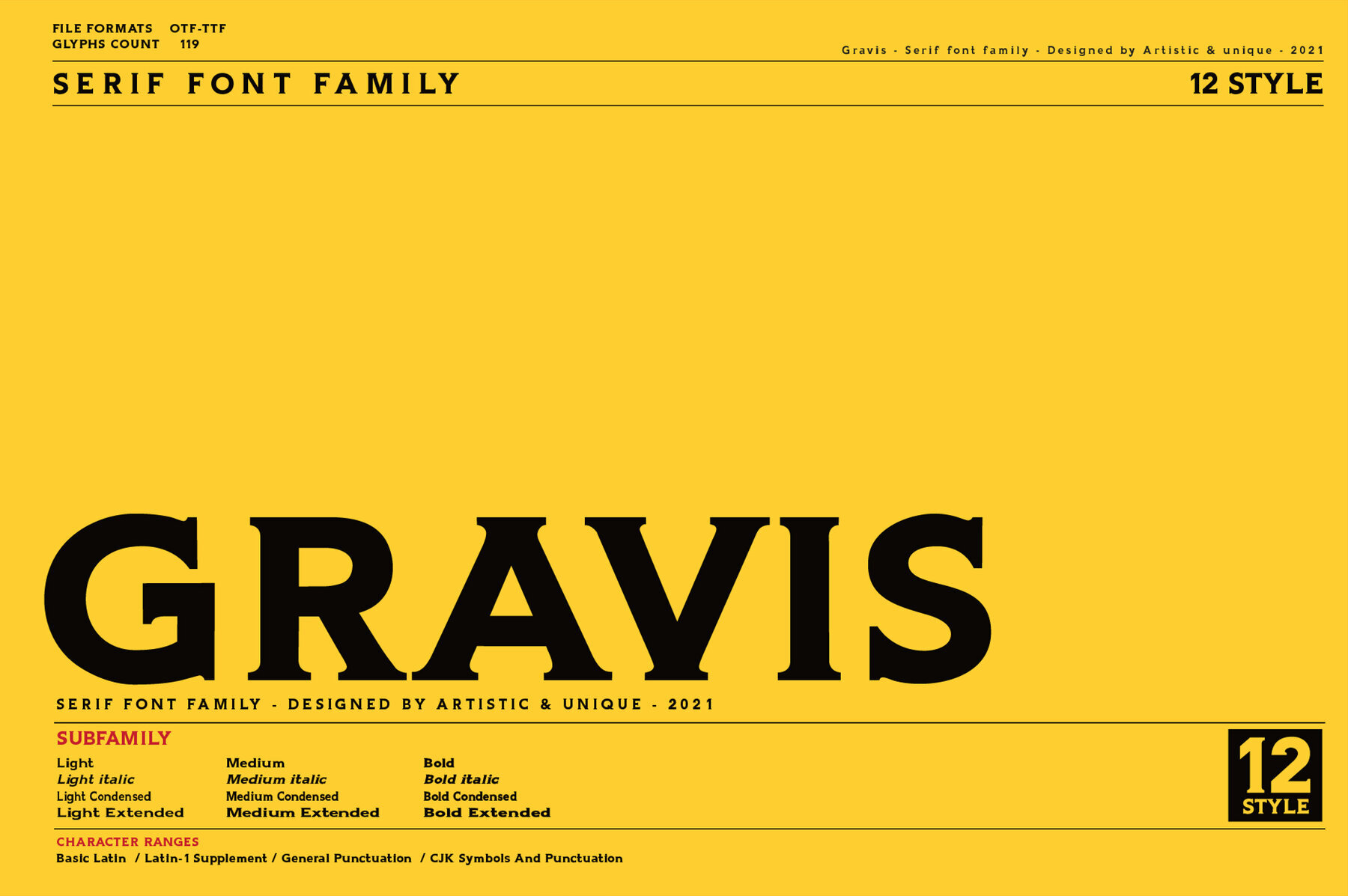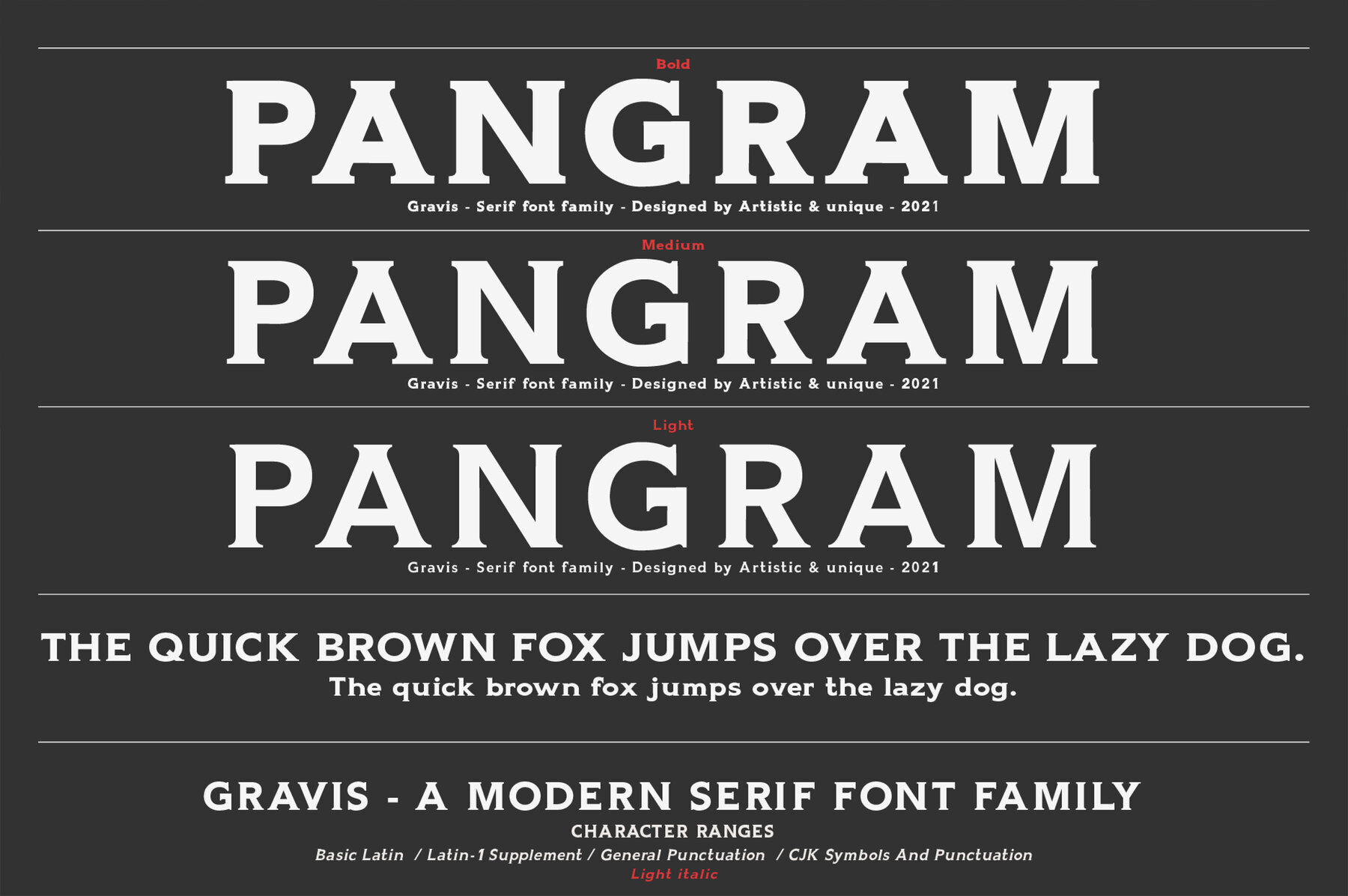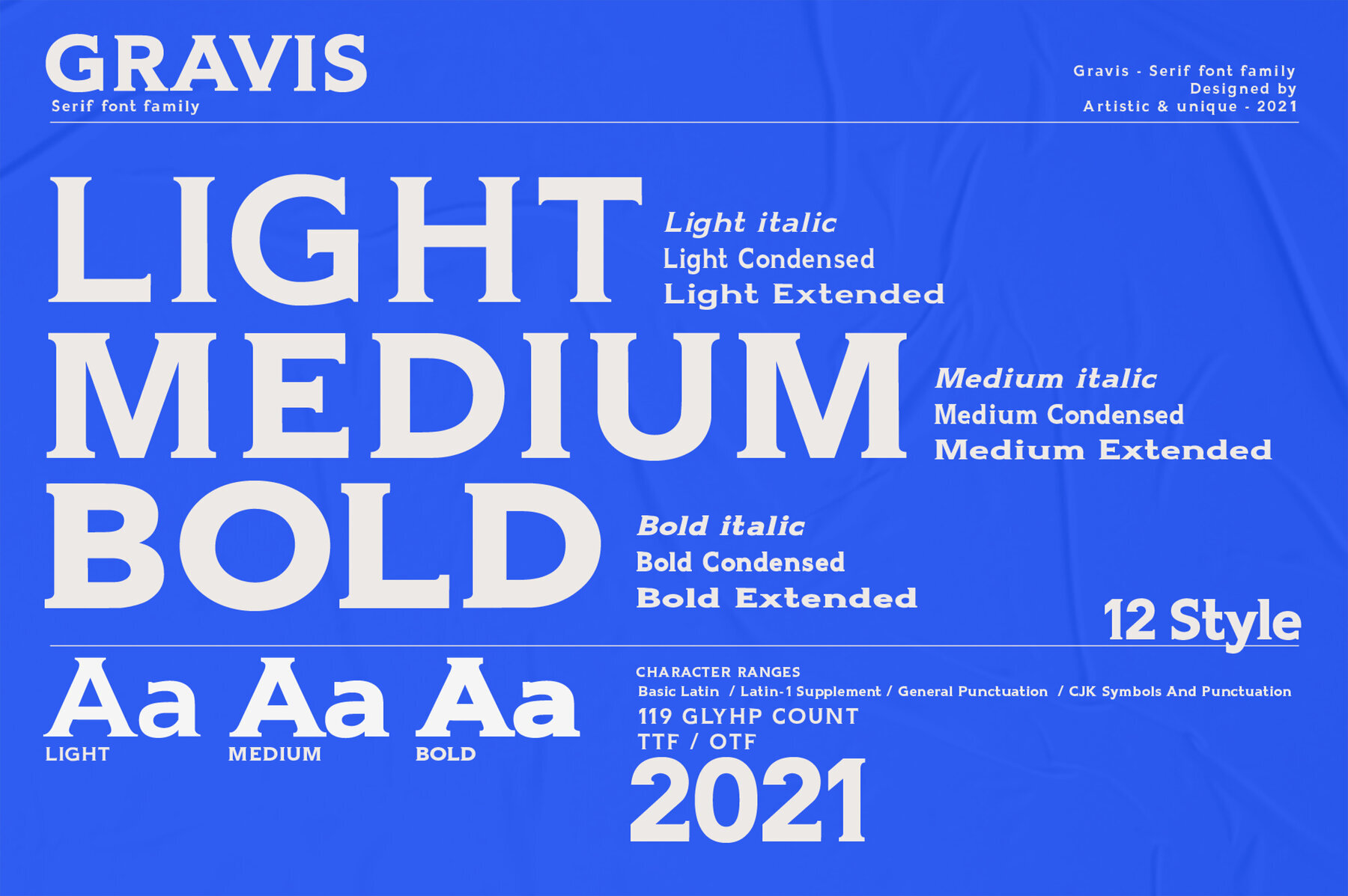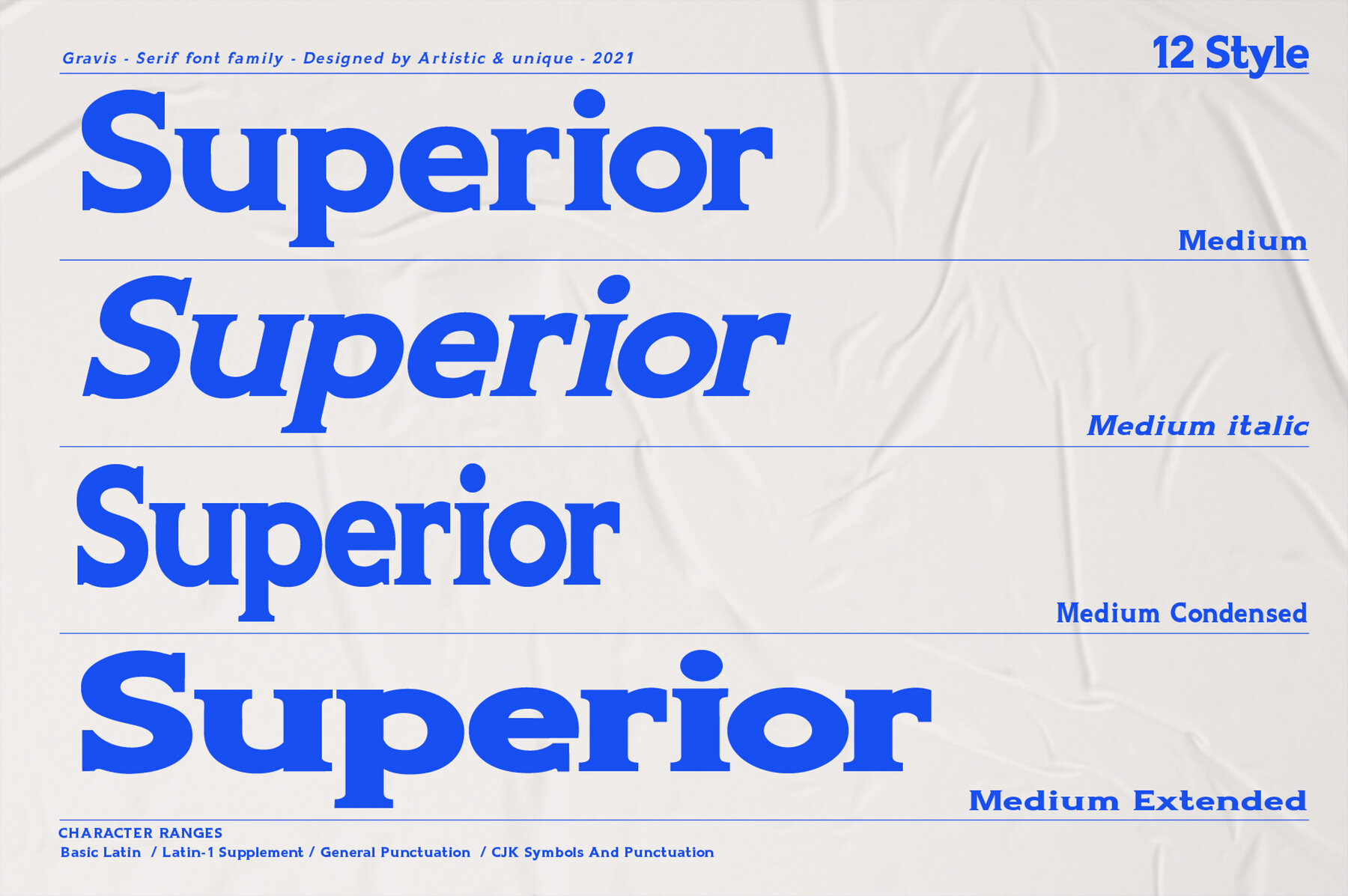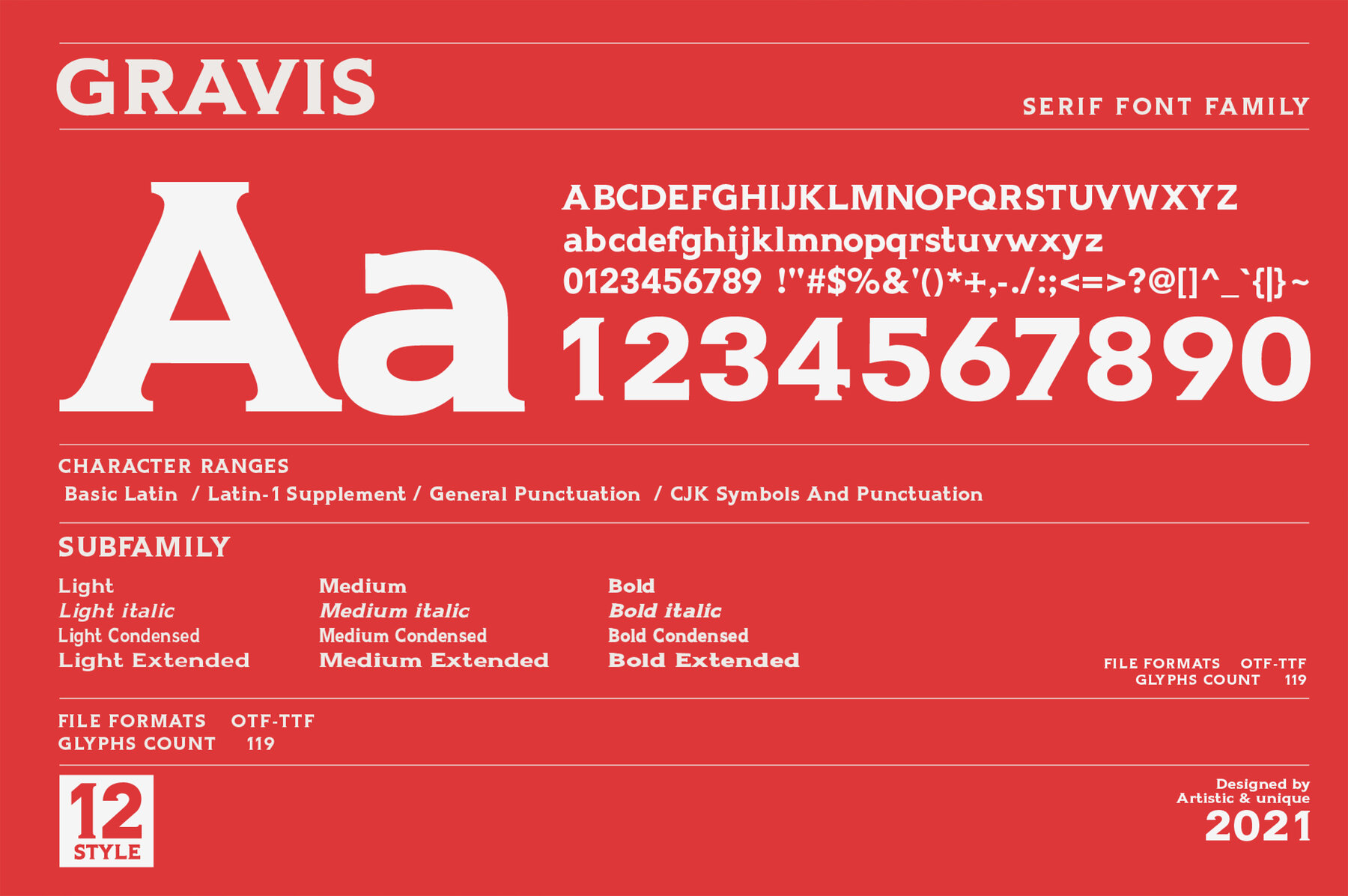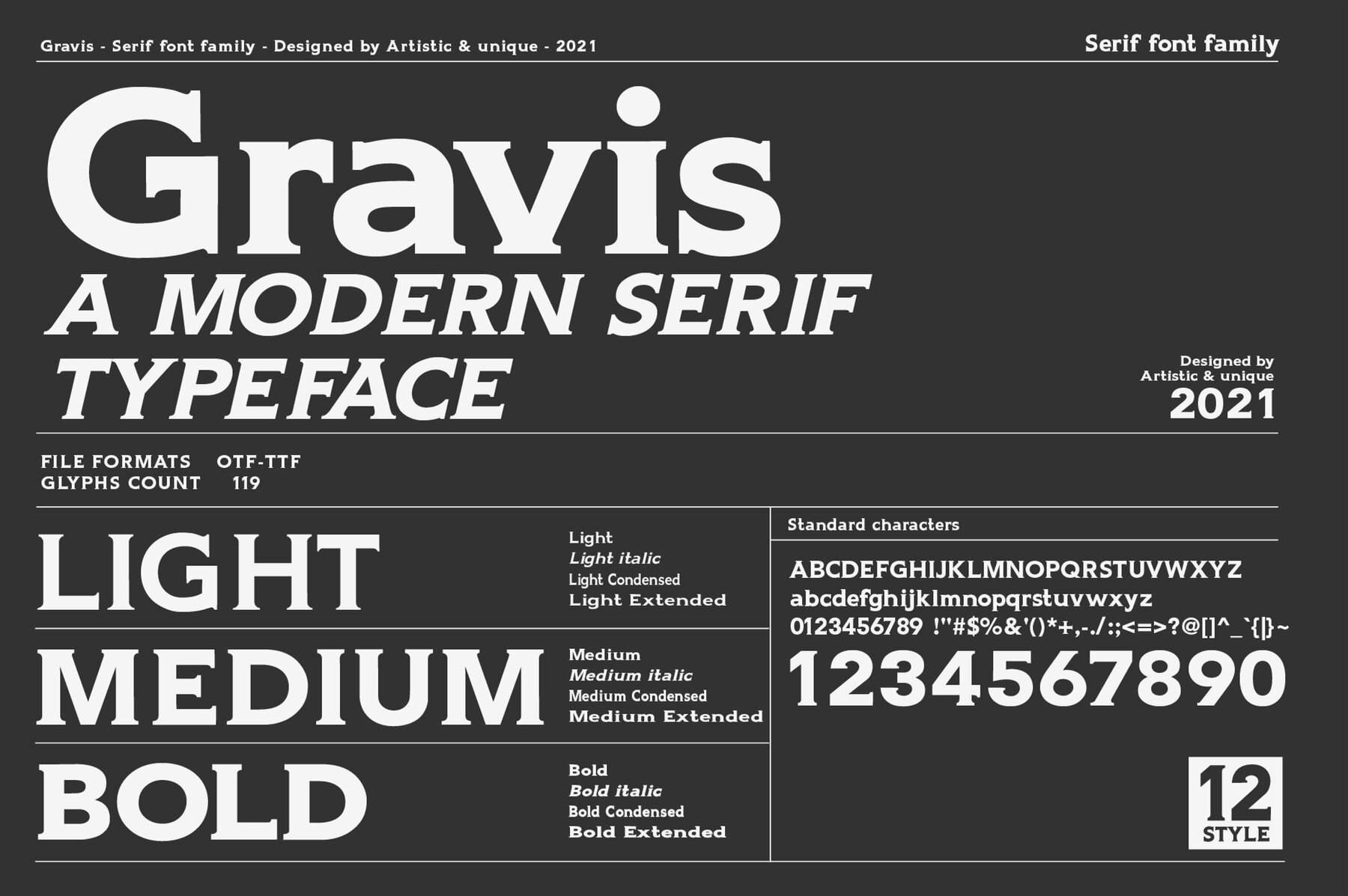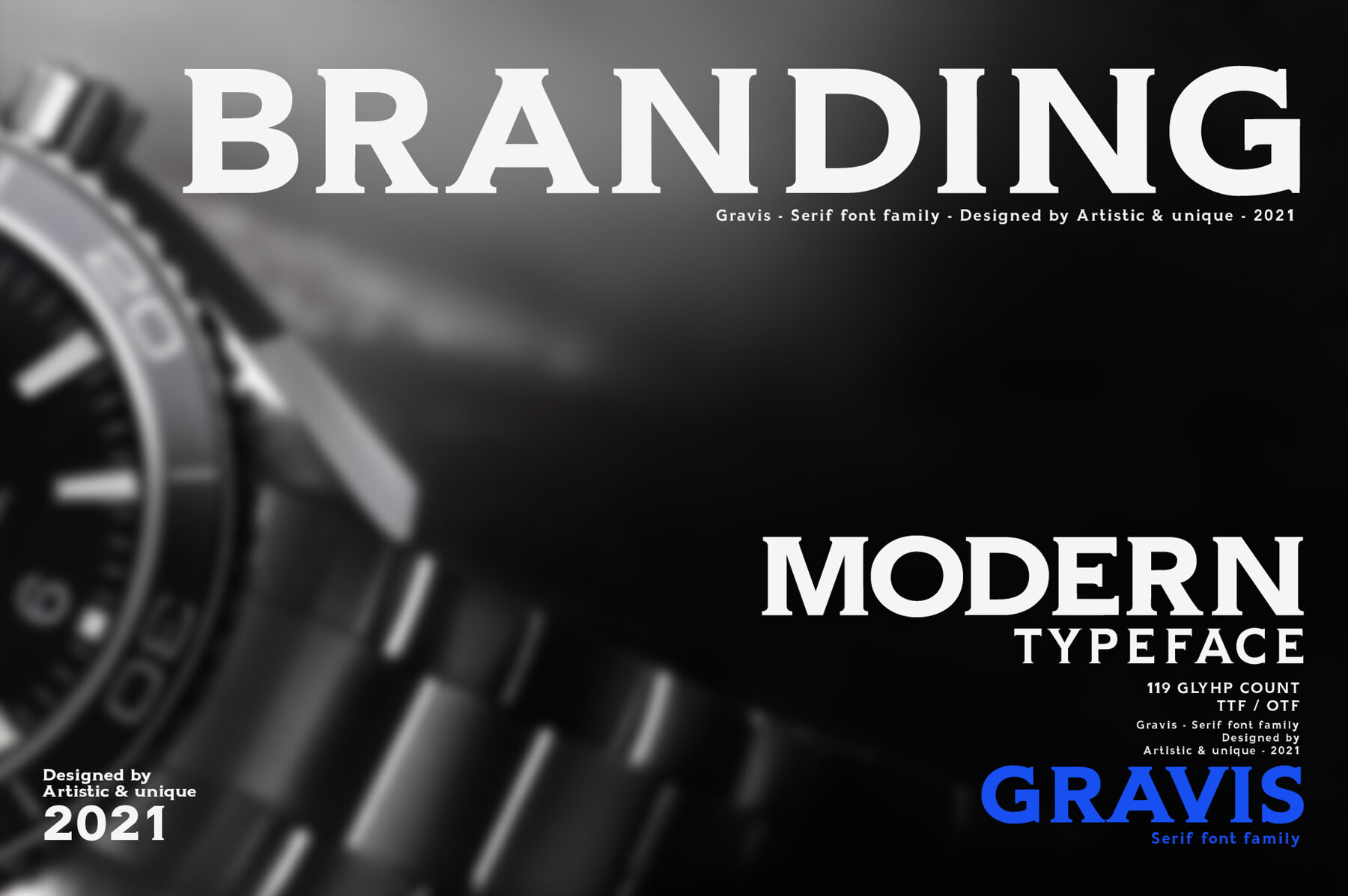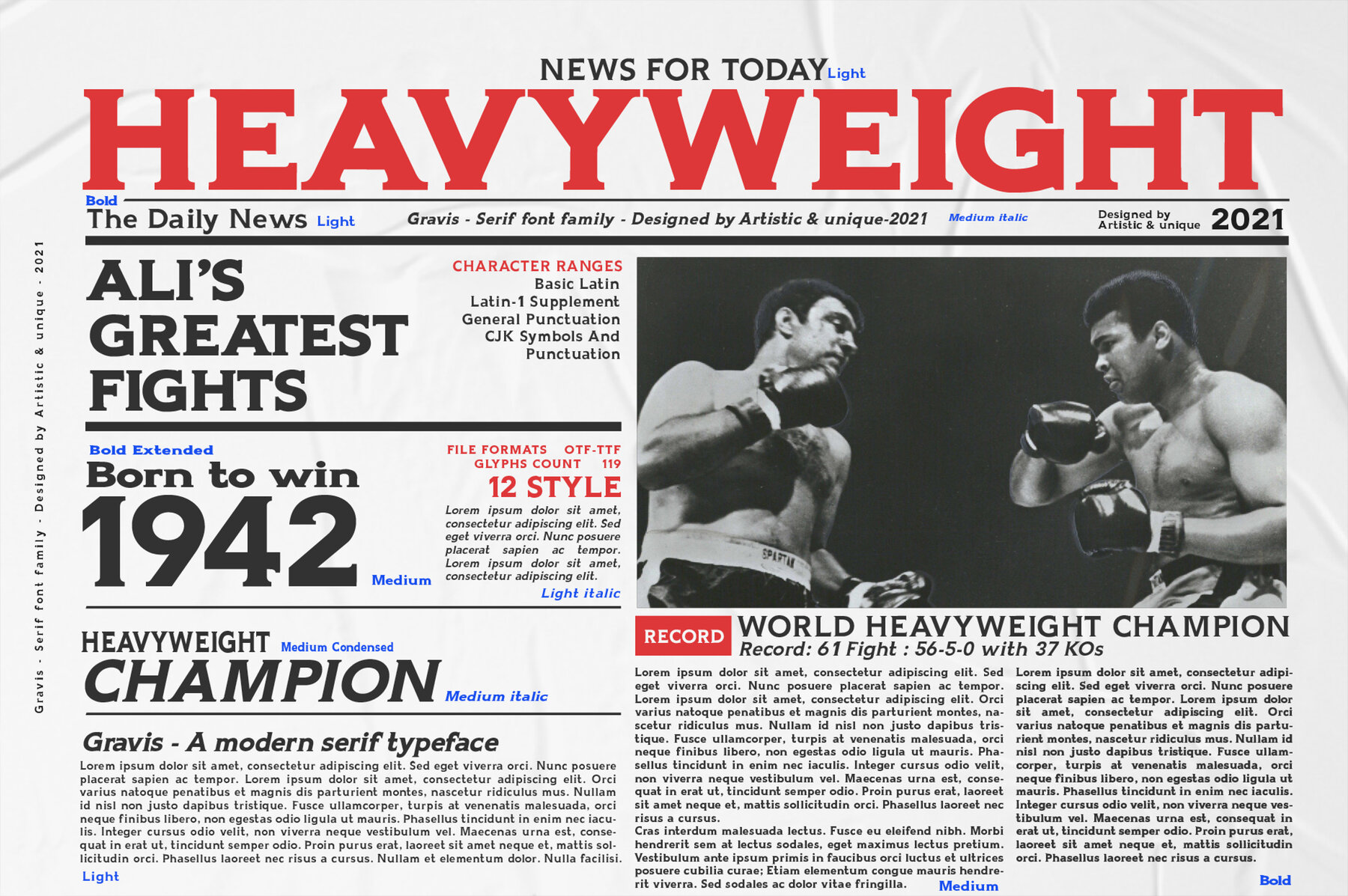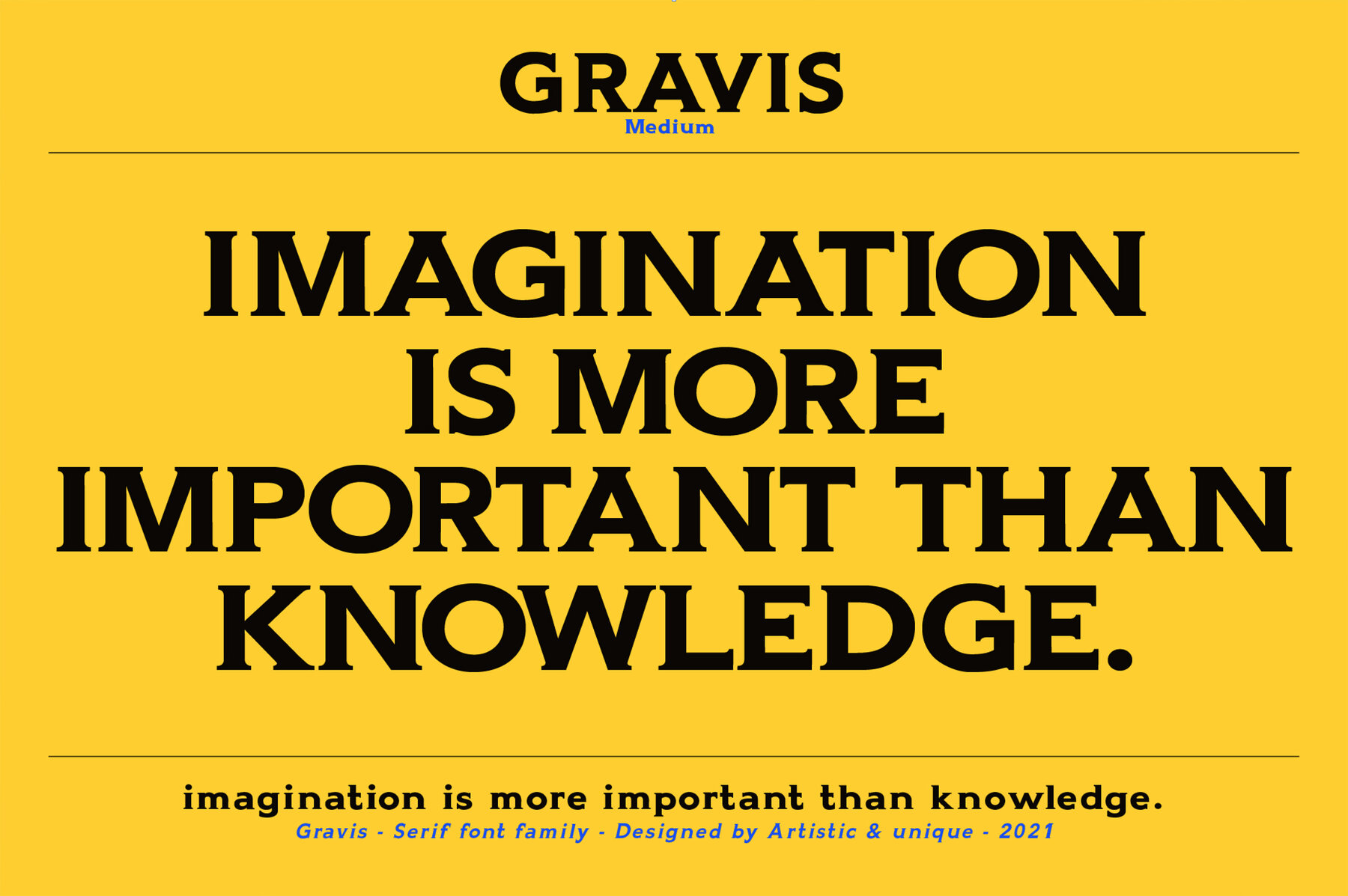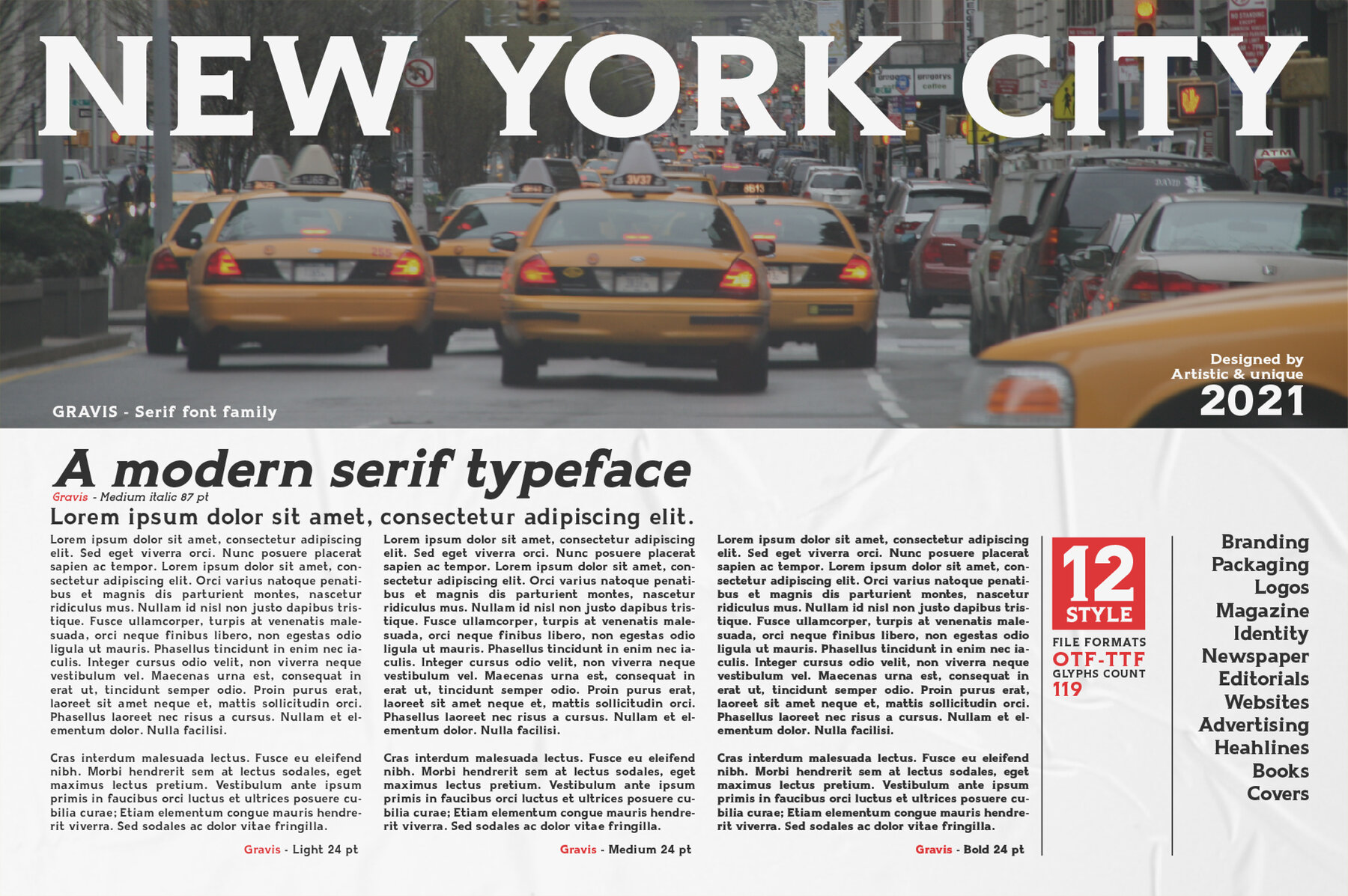
Gravis Font
Gravis, a serif font family featuring 12 distinct styles, is crafted to deliver a dominant and impactful presence in any design. Perfect for highlighting titles, subtitles, and promotional captions, this typeface offers the versatility to mix upper and lowercase letters, creating both classical and modern aesthetics. Whether you are crafting body text or making bold statements, Gravis adapts seamlessly to a variety of projects, including books, magazines, editorials, websites, and more.Gravis Typeface: Elevate Your Designs
Extensive Character Set